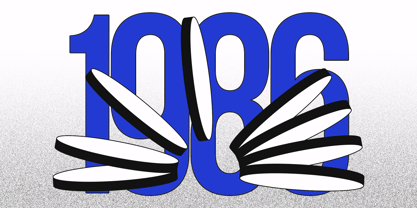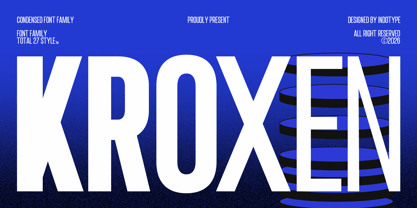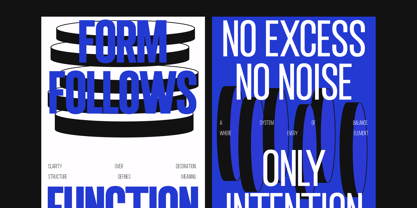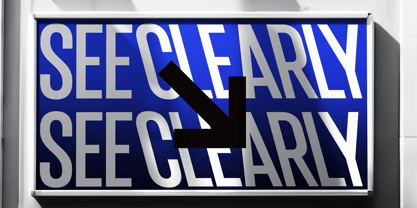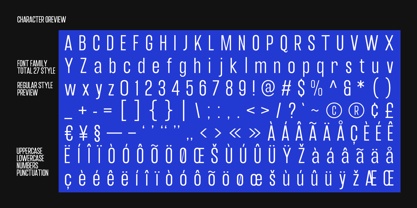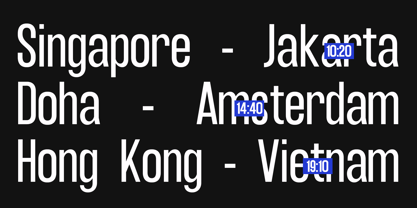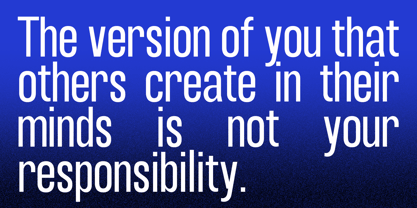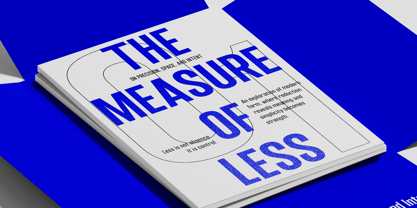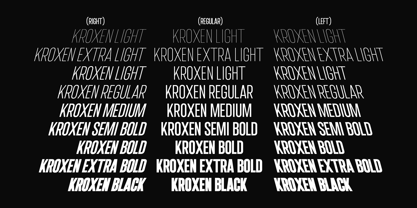
IT Kroxen
by Indotype
The IT Kroxen Font Family was designed by Dede Kurniawan and published by Indotype. IT Kroxen contains 27 styles and family package options. More about this family
Kroxen is a condensed sans-serif font family of exceptional range and industrial precision. Designed by Indotype, Kroxen delivers 27 styles across a comprehensive weight and width spectrum — making it one of the most versatile condensed type systems available for contemporary design. Where most condensed fonts offer a narrow slice of typographic possibility, Kroxen provides a complete design toolkit: from whisper-thin compressed styles to brutally heavy ultra-condensed display weights, all unified by a coherent geometric vision and an unmistakable character built for high-impact visual communication. Design Characteristics Kroxen is defined by its disciplined geometric construction and its commitment to maximum vertical economy. The letterforms are tall, narrow, and architecturally precise — built on a grid of clean right angles, circular arcs, and uniform stroke relationships that give the family its contemporary, technical aesthetic. There is no unnecessary ornamentation here: every curve, every terminal, every junction is resolved with the efficiency of a well-engineered system. The upright stance of Kroxen's letterforms — combined with its generous cap height and tight side bearings — makes it ideal for situations where vertical information density is essential without sacrificing visual impact. Headlines can be set at massive scale while consuming a fraction of the horizontal space that conventional sans-serifs would require. This is the fundamental promise of a great condensed family, and Kroxen delivers it without compromise across all 27 styles.